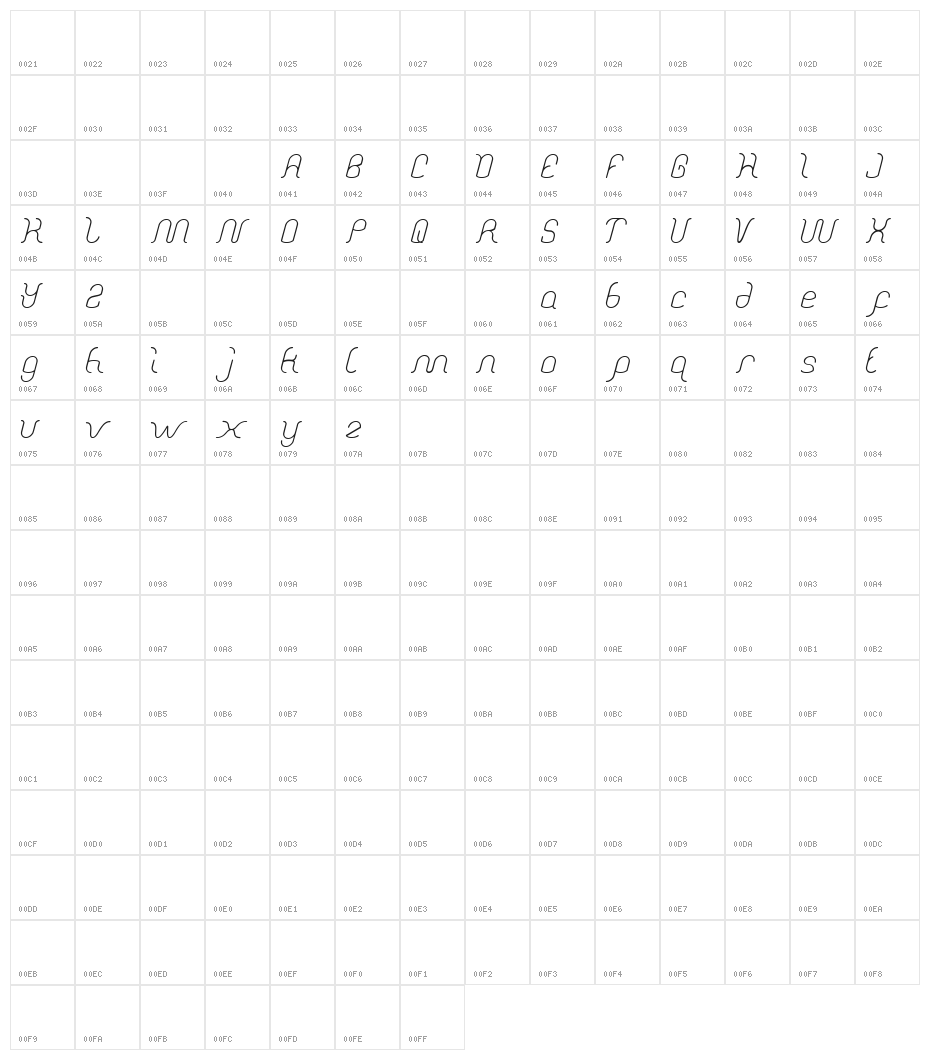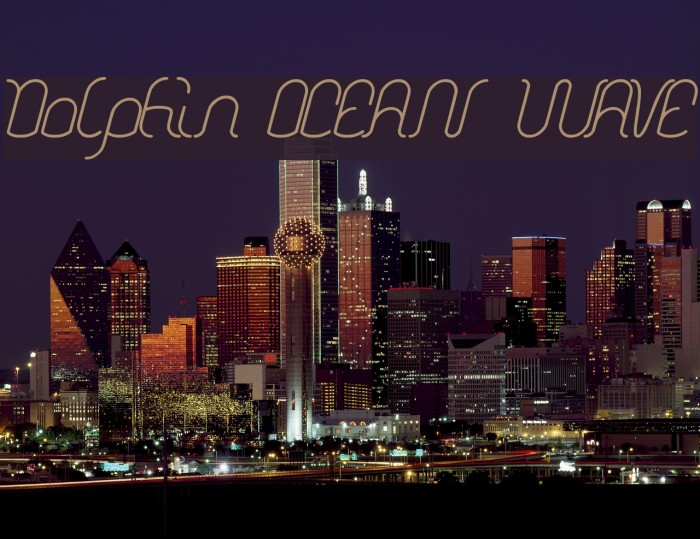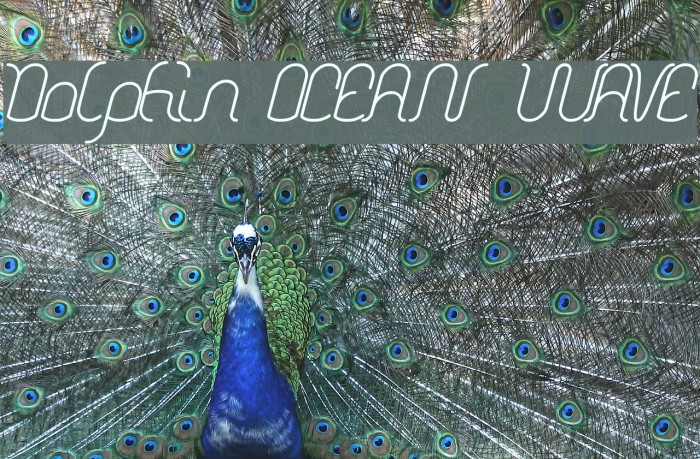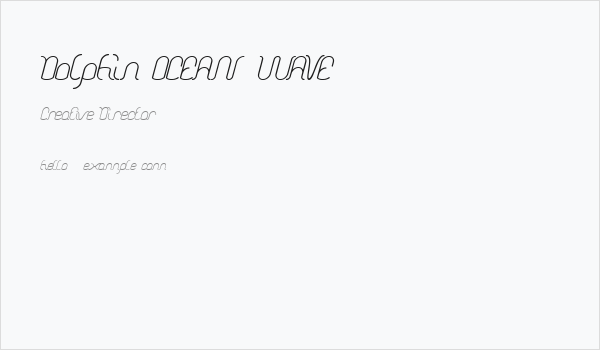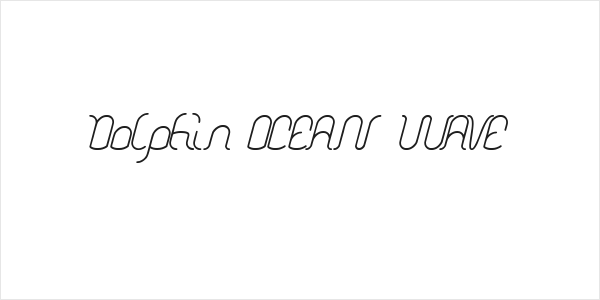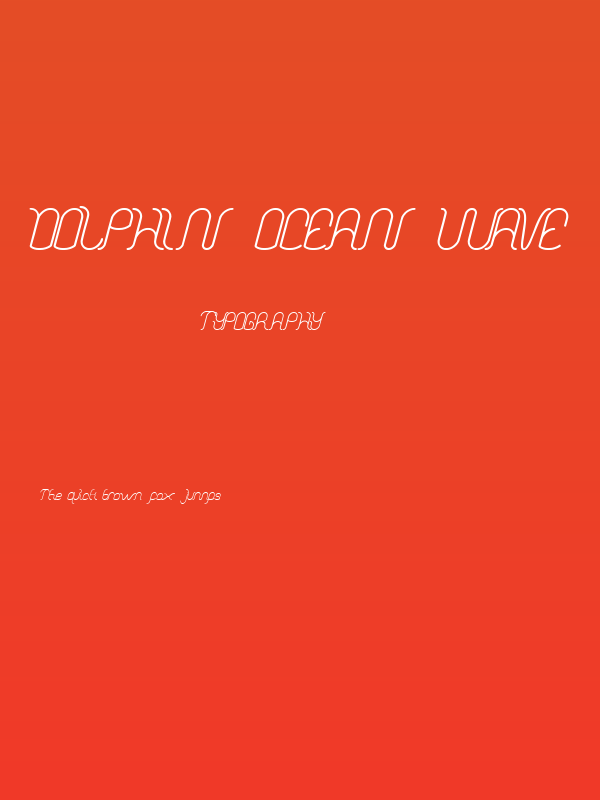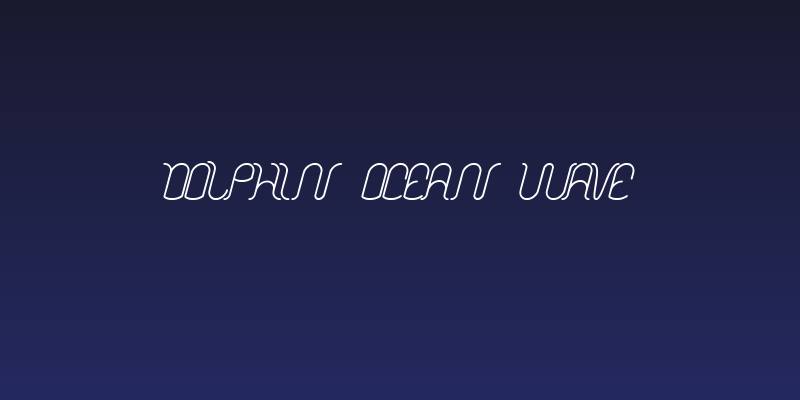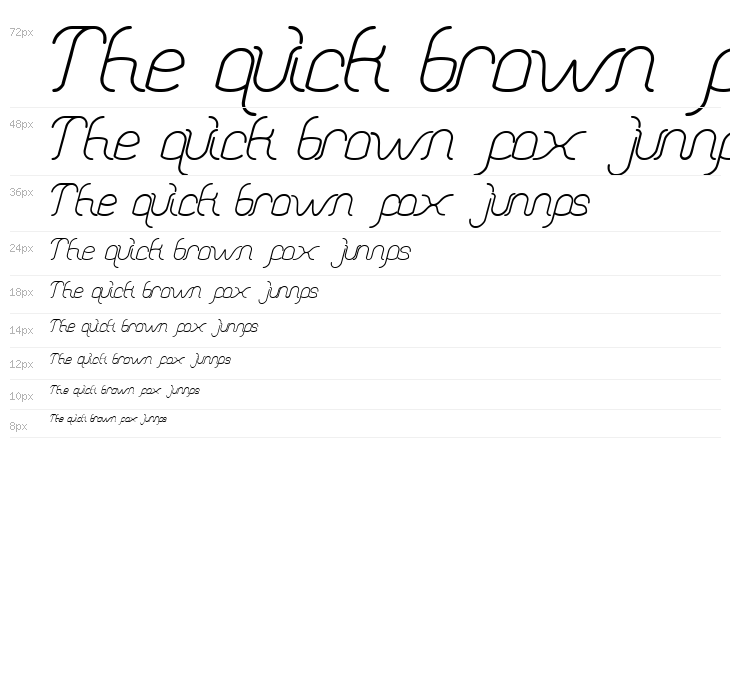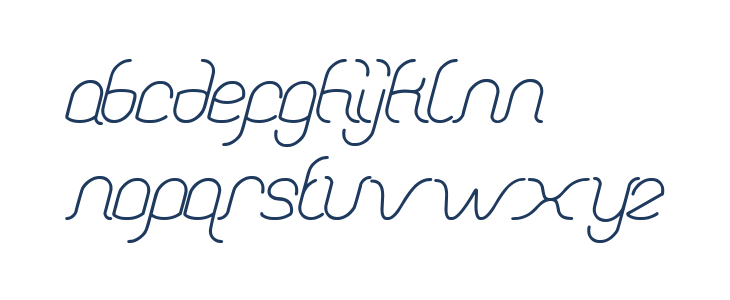
Dolphin OCEAN WAVE Font
Dolphin OCEAN WAVE Description
This font features a fluid, wave-like design that mimics the gentle curves of ocean waves. Each letter is crafted with smooth, continuous lines that create a sense of movement and flow. The uppercase and lowercase letters maintain a consistent style, with rounded edges and a slight slant that adds to the dynamic appearance. The numbers and special characters follow the same aesthetic, ensuring a cohesive look across all text. This font's unique style makes it stand out, offering a modern twist on traditional script fonts.
Use CaseLogos, Invitations, Headlines
Proposed ProjectsIdeal for beach-themed designs, surf shop branding, or any project needing a touch of oceanic elegance.